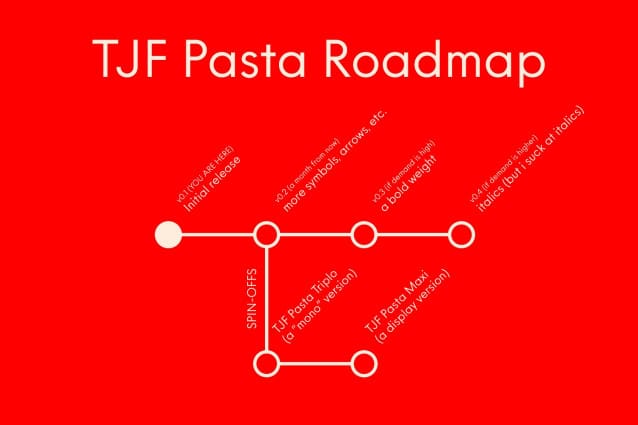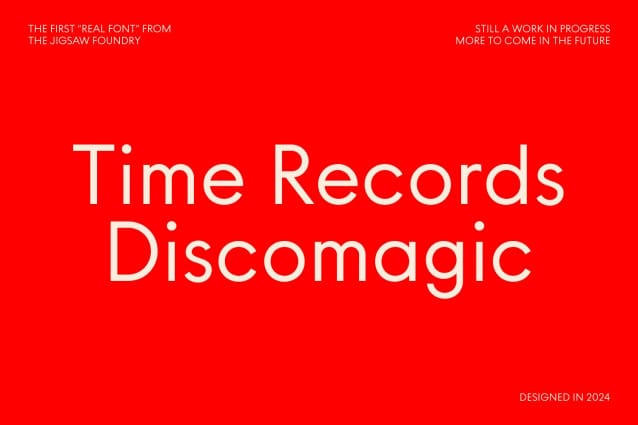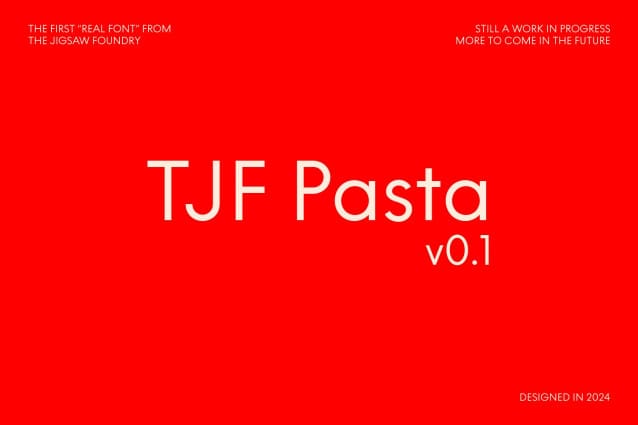
TJF Pasta Font
TJF Pasta Font is a study of various early 20th century geometric faces, combining quirks of them into one singular face as uniformly as possible. Just versatile as the Italian delicacy, Pasta can be the base of many different projects.
Pasta is a WORK IN PROGRESS! That means in the future, I will work to add more language support, symbols, and styles.